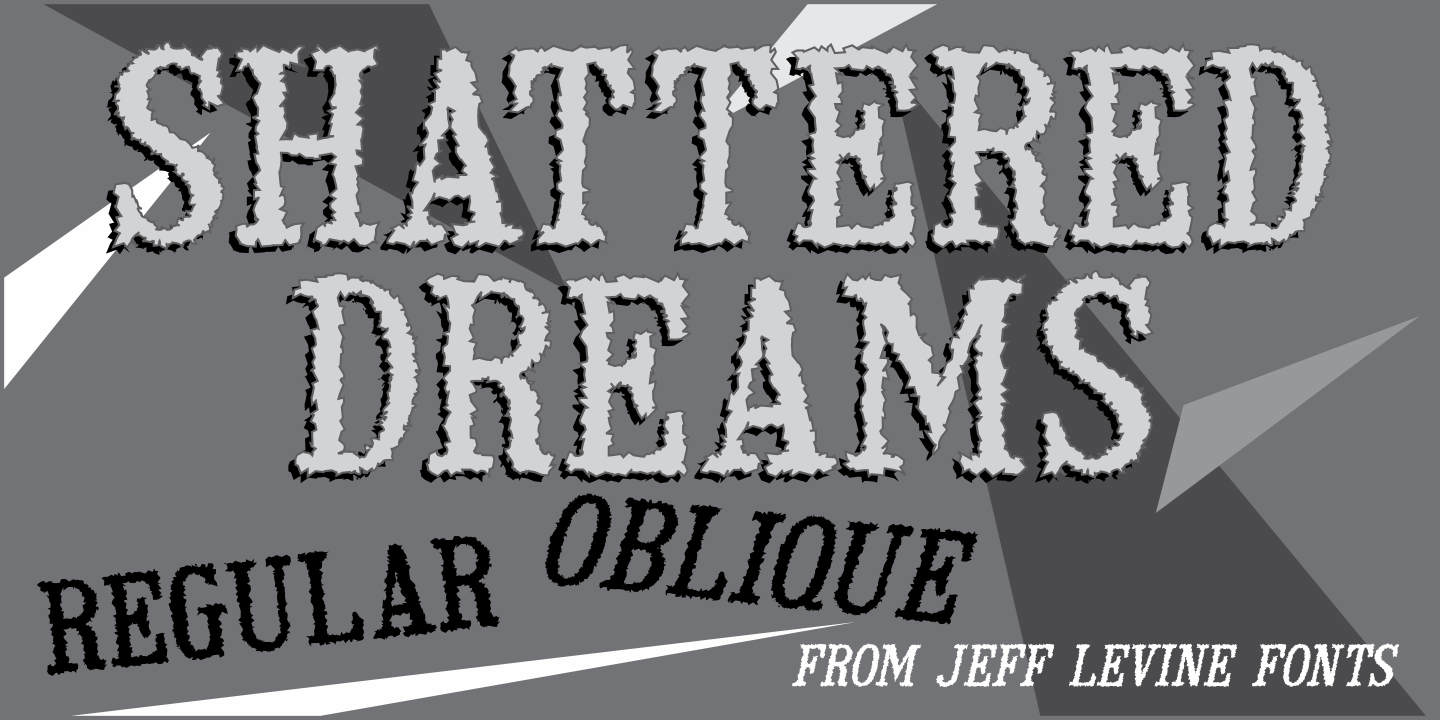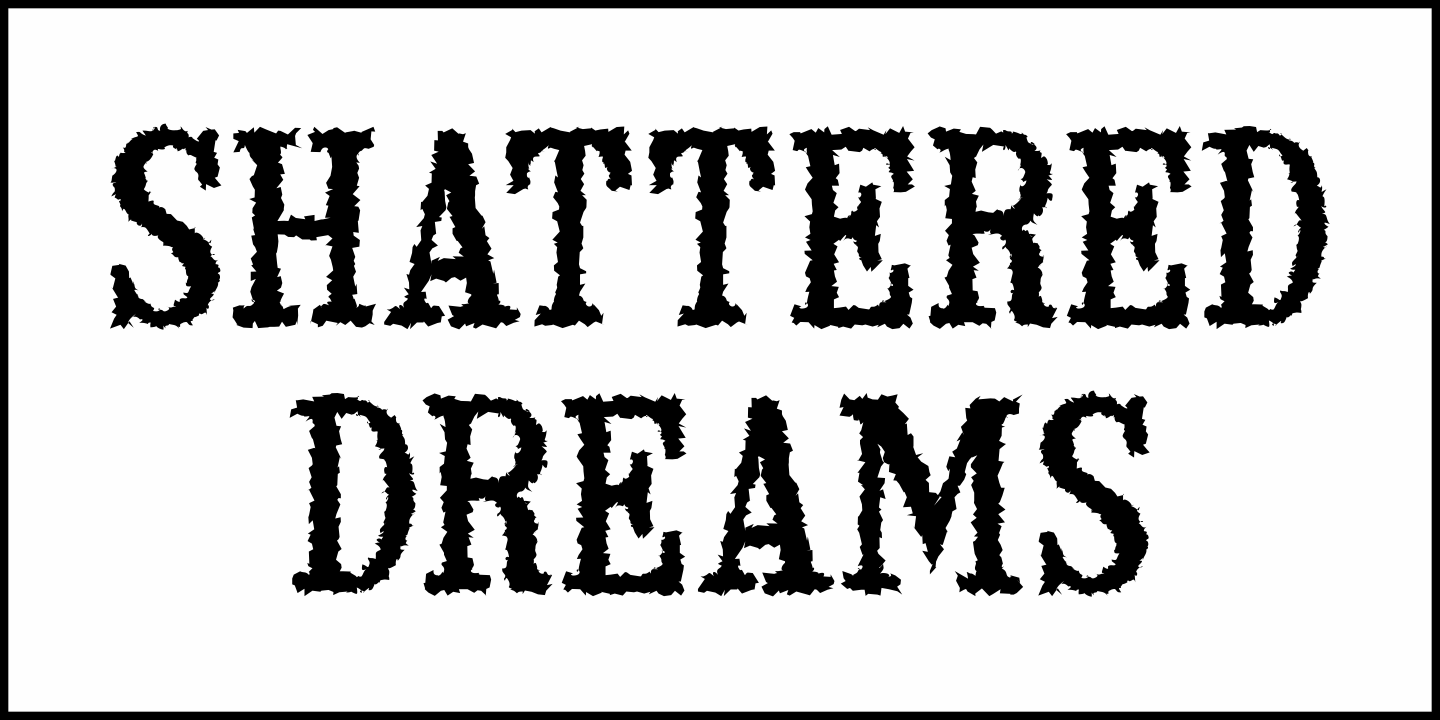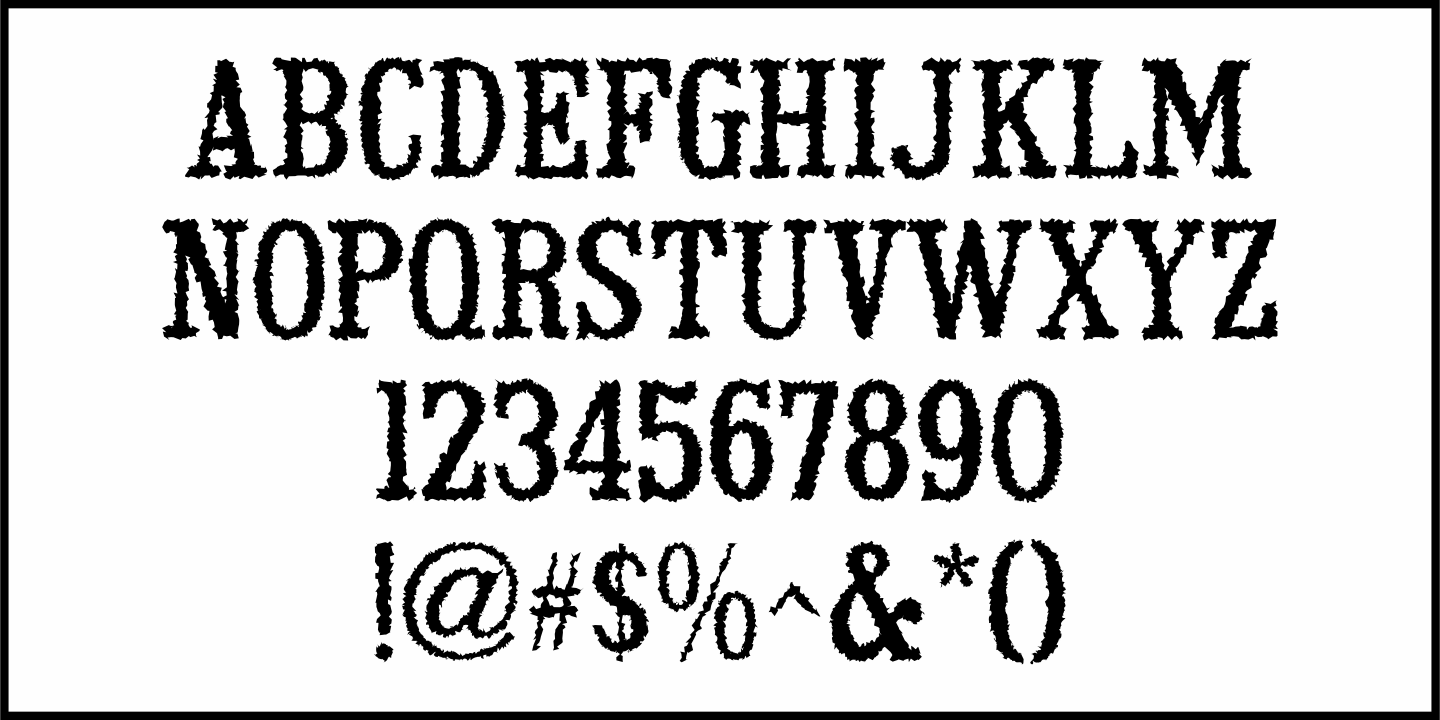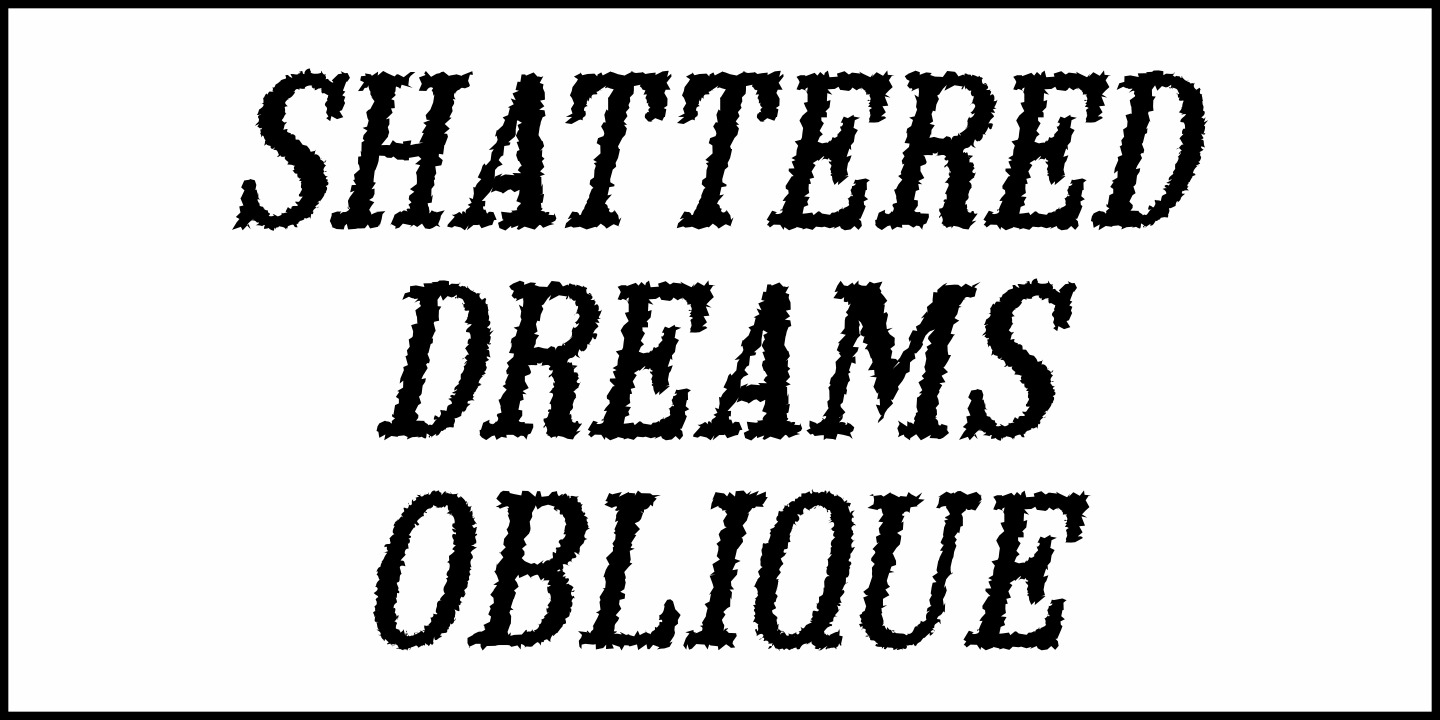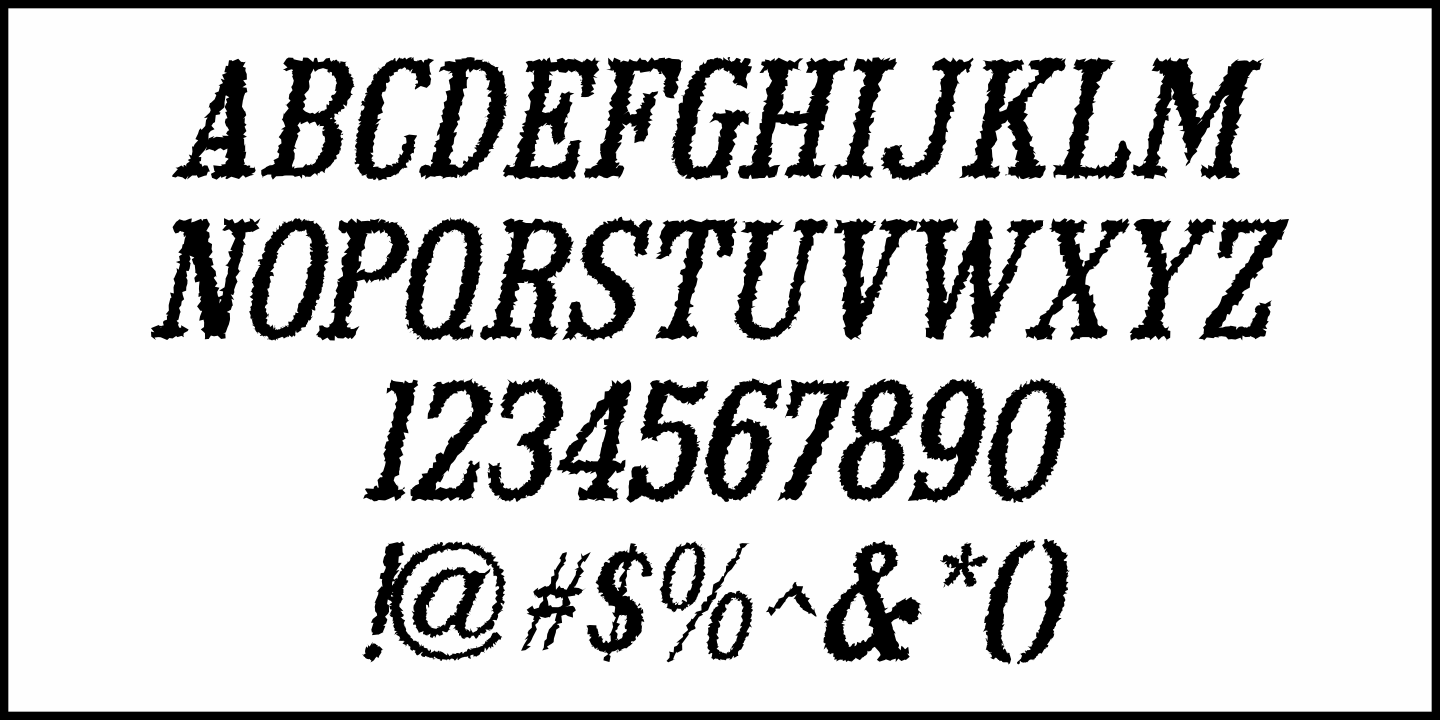
Shattered Dreams
Another filter effect version of Adhesive Serif Letters JNL (of which the original design was modeled after some vintage gummed letters used for signage) and is called Shattered Dreams JNL.
This variant has jagged edges all around and is kind of reminiscent of shapes you could make with a small magnet and iron filings.
Shattered Dreams JNL is available in both regular and oblique versions.